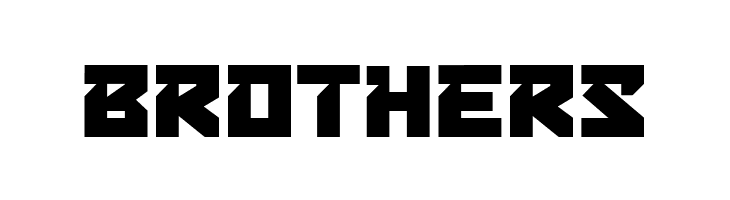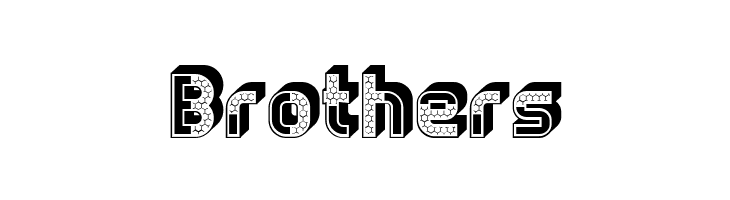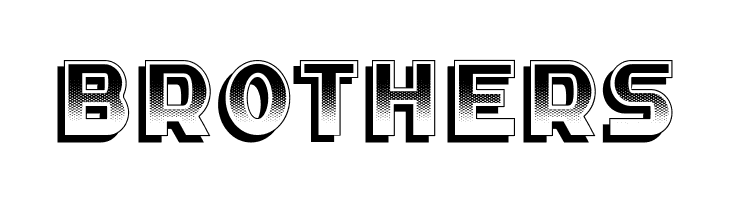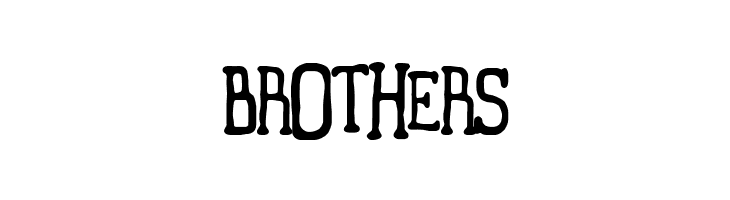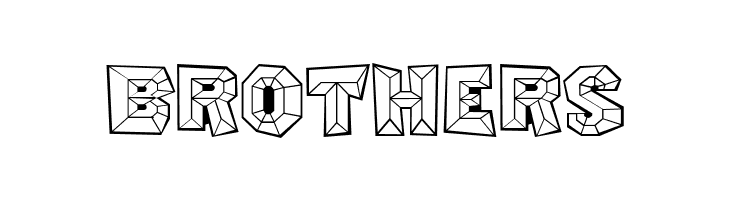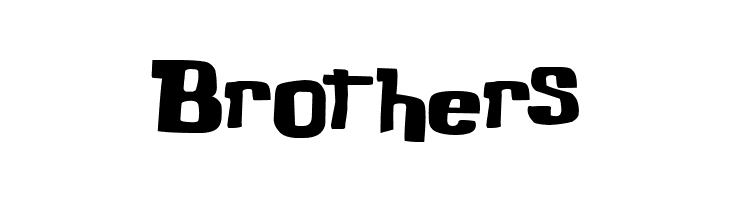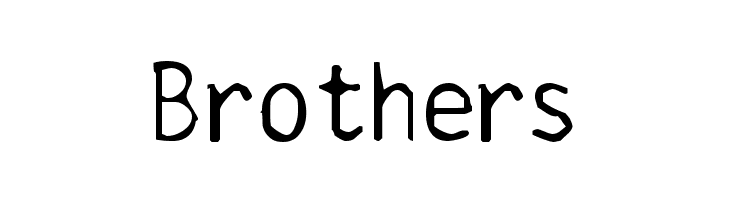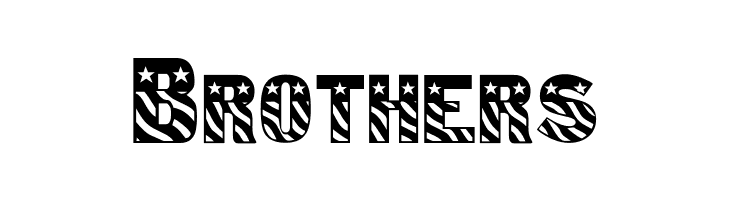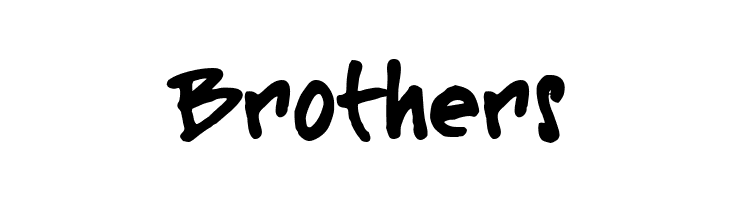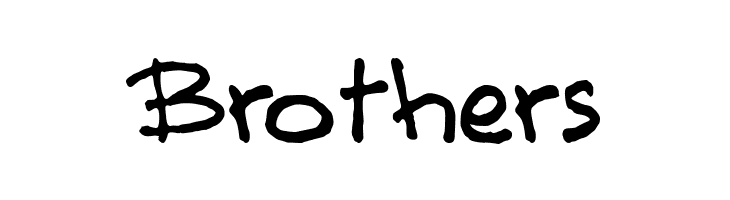
A geometric, three-dimensional font with a faceted, crystal-like design.
A decorative font featuring Buffalo landmarks and symbols within each character.
A bold, decorative font with a 3D effect and dotted texture.
A bold, brush-style font with dynamic, hand-painted strokes.
A bold, decorative font with a geometric hexagonal pattern and strong outlines.
A bold, geometric font with a blocky, modular design.
A playful, casual handwritten font with uneven strokes and an organic flow.
A bold, playful font with a whimsical, hand-drawn style.
A bold, gothic-inspired font with sharp, angular lines and intricate details.
A sleek, modern font with clean lines and a minimalist aesthetic.
A bold, geometric font with angular lines and a blocky, industrial appearance.
A bold, angular, and italicized font with a futuristic and geometric design.
A playful, three-dimensional font with cylindrical, mechanical elements.
A playful, bold font with rounded edges and a slightly condensed style.
A bold, high-contrast serif font with tall, narrow letterforms and sharp serifs.
A bold, distressed font with a grunge, hand-drawn aesthetic.
A playful and casual handwritten font with fluid strokes and a whimsical feel.
A playful, bold, and whimsical font with a hand-drawn feel.